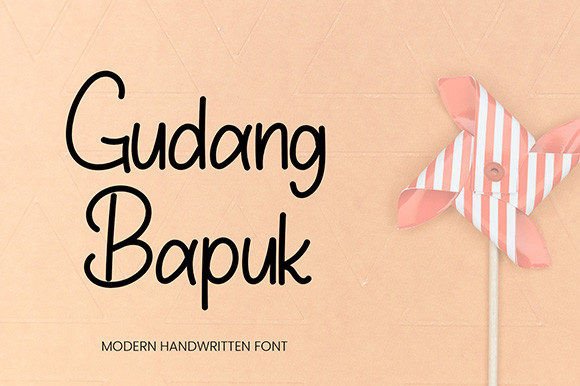
Journey into the realm of elegance and sophistication with Gudang Bapuk, a modern script font meticulously crafted by Chatype Studio. Gudang Bapuk, meaning "warehouse of scripts," is not just a font; it's a gateway to creative expression, designed to elevate your designs and leave a lasting impression on your audience.
Immerse yourself in the world of Gudang Bapuk's distinctive style, a harmonious blend of tradition and contemporary flair. Each letterform dances across the page with grace and fluidity, captivating the eyes and igniting the imagination. With its sweeping lines, delicate serifs, and enchanting ligatures, Gudang Bapuk breathes life into your words, transforming them into an artful masterpiece.
Whether you're a graphic designer seeking to create eye-catching logos, a blogger yearning for captivating headers, or a passionate artist seeking to express your individuality, Gudang Bapuk is your perfect companion. Its versatility knows no bounds, seamlessly adapting to a myriad of projects, from enchanting invitations to stylish clothing designs.
With Gudang Bapuk at your disposal, you'll discover endless possibilities to unleash your creativity. Craft heartfelt quotes that resonate with your audience, design logos that exude professionalism, and create blog headers that entice readers to delve deeper into your content. Gudang Bapuk is not merely a font; it's an instrument of artistic expression, empowering you to paint your vision with strokes of elegance.
Join the ranks of creative visionaries who have succumbed to the charm of Gudang Bapuk. Let your imagination soar, let your creativity flow, and let Gudang Bapuk guide you on your journey to design excellence.